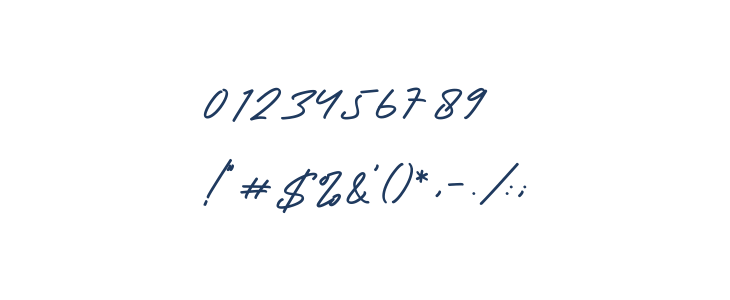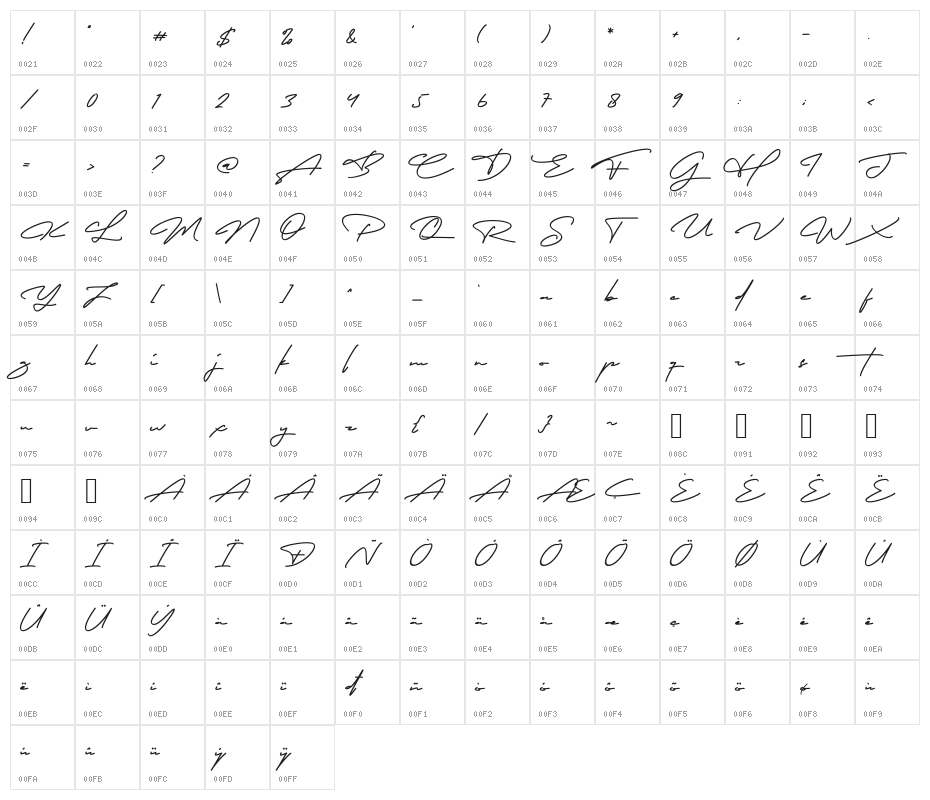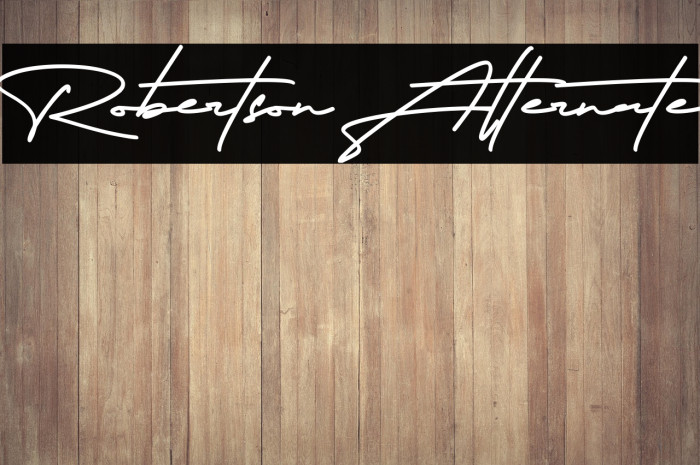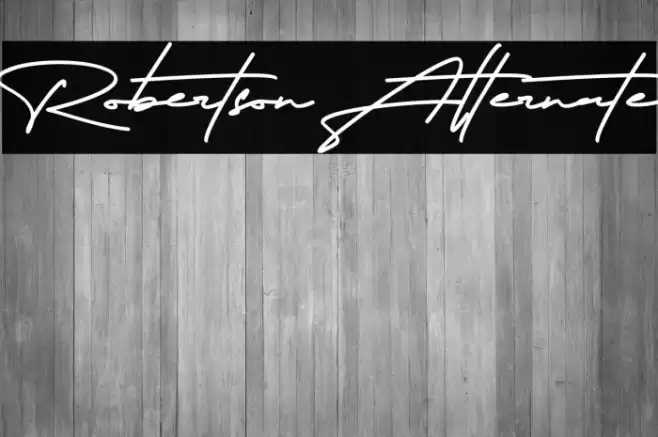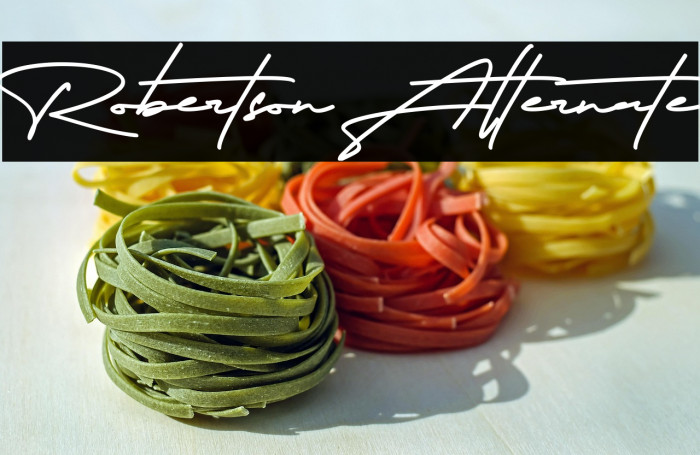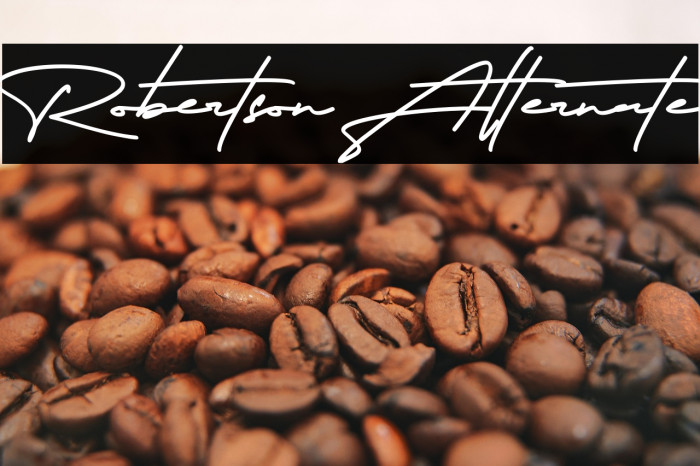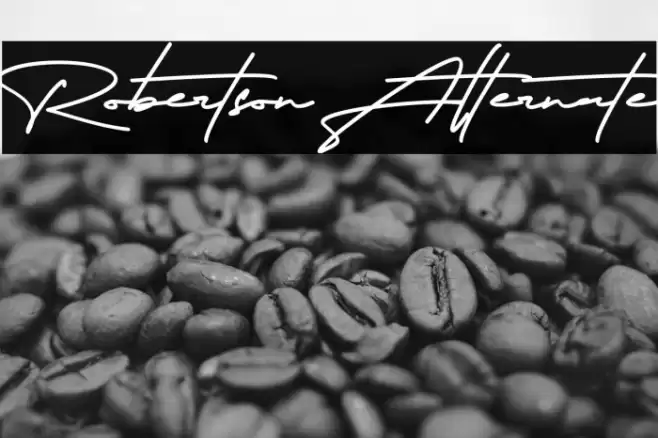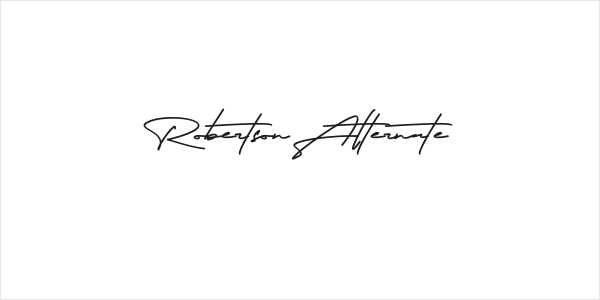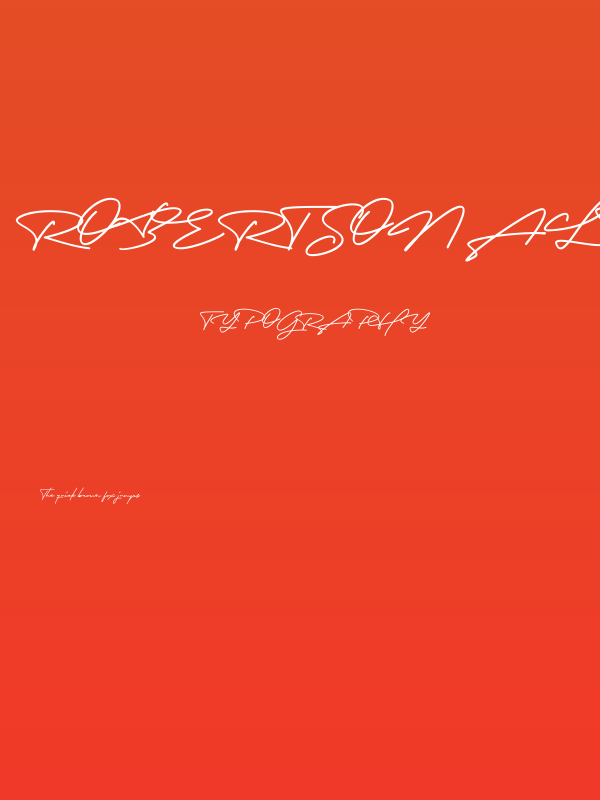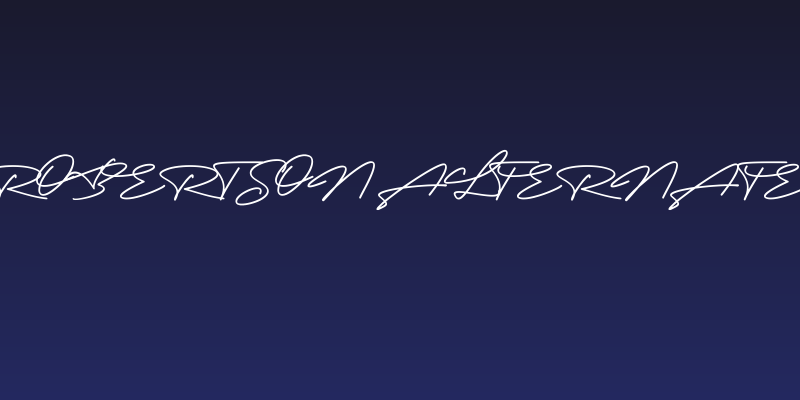
Robertson Alternate Font
Robertson Alternate Description
This font features a dynamic and fluid script style, characterized by its elegant and flowing cursive letters. The uppercase letters are bold and sweeping, with a distinctive flair that adds a touch of sophistication. The lowercase letters maintain a consistent rhythm, with smooth connections and a natural handwriting feel. The numerals are clear and legible, complementing the overall aesthetic. Special characters are thoughtfully designed to match the script's elegance, making it suitable for creative and artistic projects. The font's unique style is perfect for adding a personal touch to invitations, branding, and other design elements that require a handwritten look.